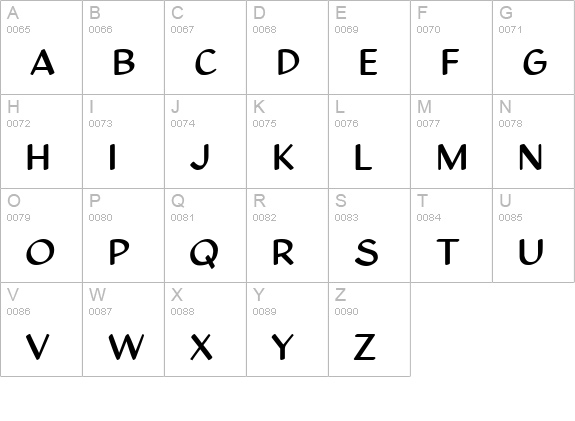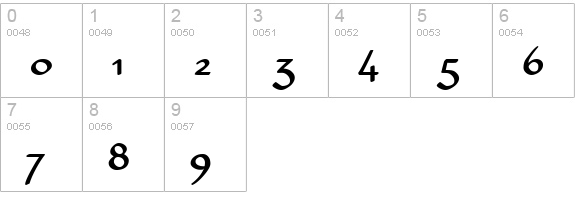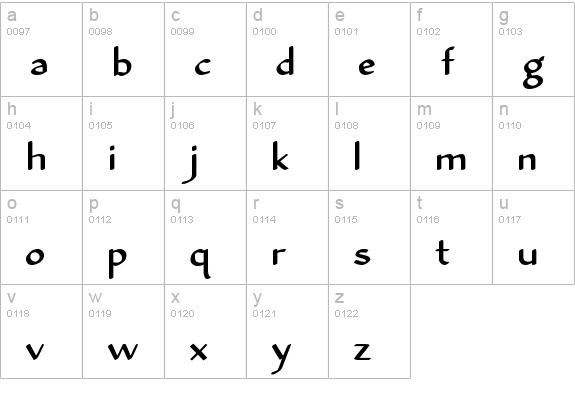
Introducing Holly font - a charming and elegant typeface that exudes sophistication and modernity. With its graceful curves and clean lines, Holly font is perfect for adding a touch of class to any design project. Whether you're creating wedding invitations, branding materials, or social media graphics, this versatile font is sure to make a statement. The best part? Holly font is available for free download at FontsMarket.com, allowing you to access this high-quality typeface without breaking the bank. Don't miss out on the opportunity to elevate your designs with the timeless beauty of Holly font. Download it today and let your creativity shine!